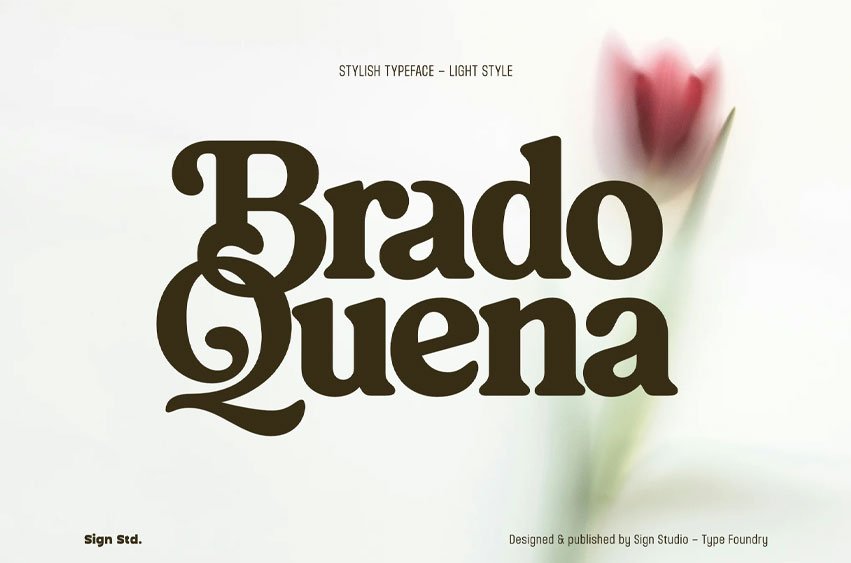
Brado Quena Font Bold is a display typeface designed to deliver a stronger and more commanding interpretation of classic elegance. With its bold presence, refined curves, and confident proportions, it captures a sophisticated character that feels both timeless and expressive.
Crafted for impactful visual communication, Brado Quena Bold performs beautifully across luxury branding, editorial headlines, packaging, fashion campaigns, logos, posters, and digital design. Its balanced structure and distinctive letterforms create a powerful visual rhythm while preserving elegance and readability.
Brado Quena Bold includes essential OpenType features to support rich and expressive typography, including:
- Standard Ligatures
- Discretionary Ligatures
- Stylistic Set 01 (ss01) for uppercase
- Stylistic Alternate 1 (Alt1) for lowercase
These features provide greater creative flexibility and allow designers to build sophisticated typographic compositions with a unique personality.
Supporting a broad range of Latin-based languages, Brado Quena Bold is suitable for international use across both print and digital media. Whether used for premium branding or artistic layouts, it delivers a bold yet refined aesthetic with lasting visual impact.